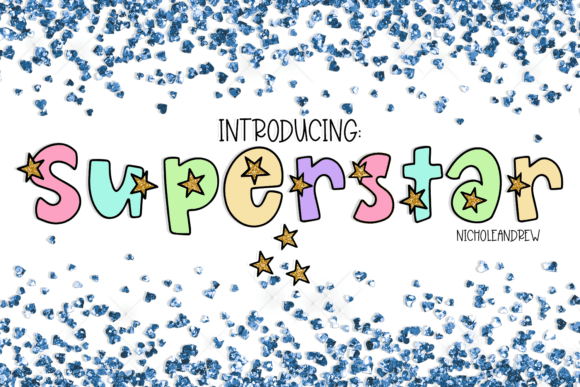
Journey into the realm of typographic enchantment with Superstar Font, a decorative font family that ignites your imagination and sparks creativity like never before. Experience the grandeur of its meticulously crafted characters, each stroke imbued with a sense of playful sophistication. Unleash your artistic flair and let your designs bask in the luminous brilliance of Superstar Font.
Picture your words dancing across the screen, adorned with the captivating allure of Superstar Font. Its graceful curves and playful strokes command attention, transforming ordinary text into an extraordinary visual spectacle. Whether you're creating eye-catching logos, vibrant social media posts, or stunning website designs, Superstar Font elevates your creations to new heights of visual appeal.
Immerse yourself in a world of endless creative possibilities. Superstar Font is your passport to a universe where imagination reigns supreme. Its versatility knows no bounds, seamlessly adapting to a myriad of design aesthetics. From whimsical invitations to bold branding, from captivating posters to enchanting social media graphics, Superstar Font effortlessly enhances your designs with a touch of magic.
Indulge in the transformative power of Superstar Font and watch as your designs metamorphose into masterpieces. Its radiant glow captivates audiences, leaving an indelible mark on their minds. Prepare to be mesmerized as your words take on a life of their own, exuding an aura of elegance and charm that leaves viewers spellbound.
With Superstar Font as your creative companion, you'll embark on a journey of typographic exploration, discovering hidden depths of expression and unlocking the true potential of your designs. Unleash your inner artist and embrace the boundless possibilities that await you.